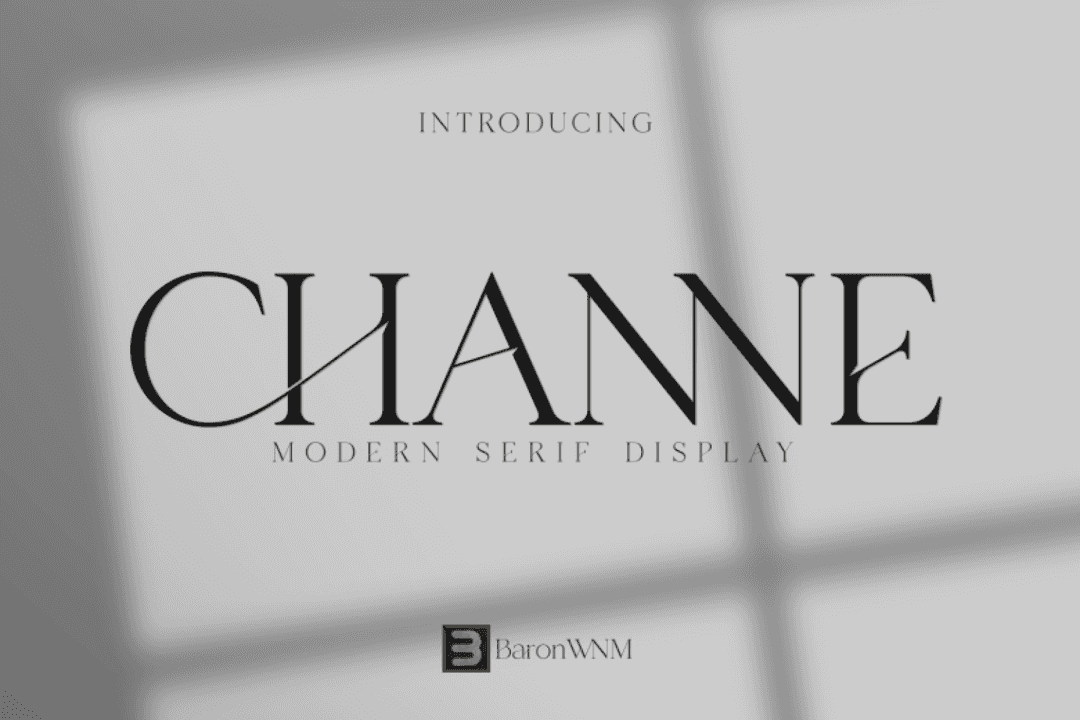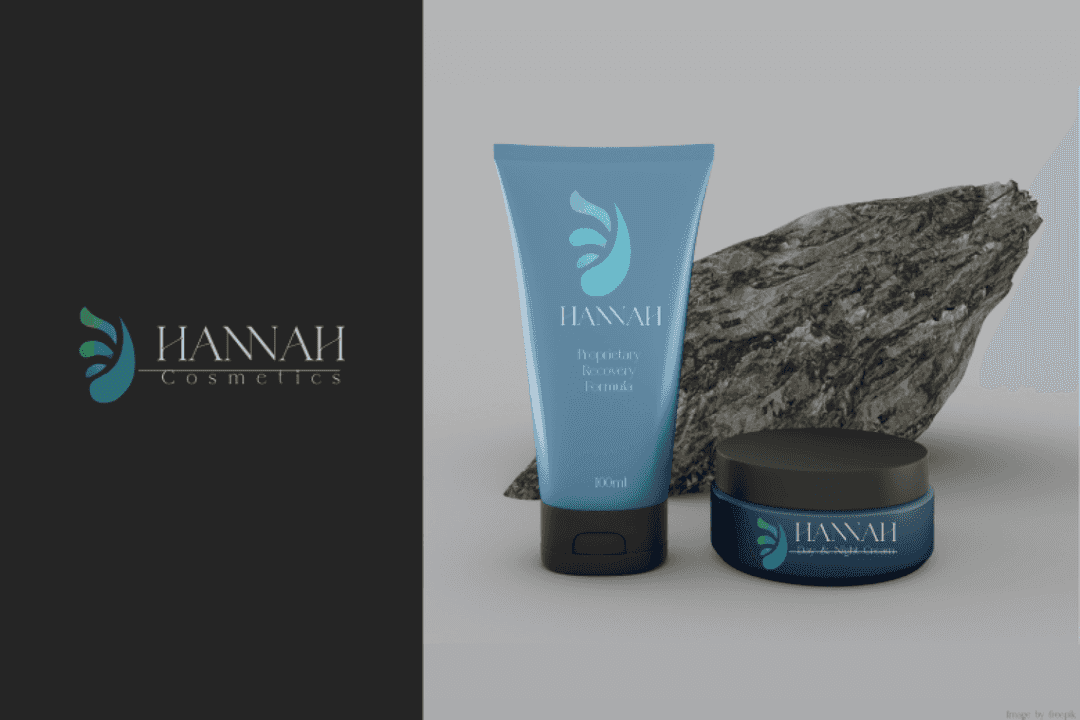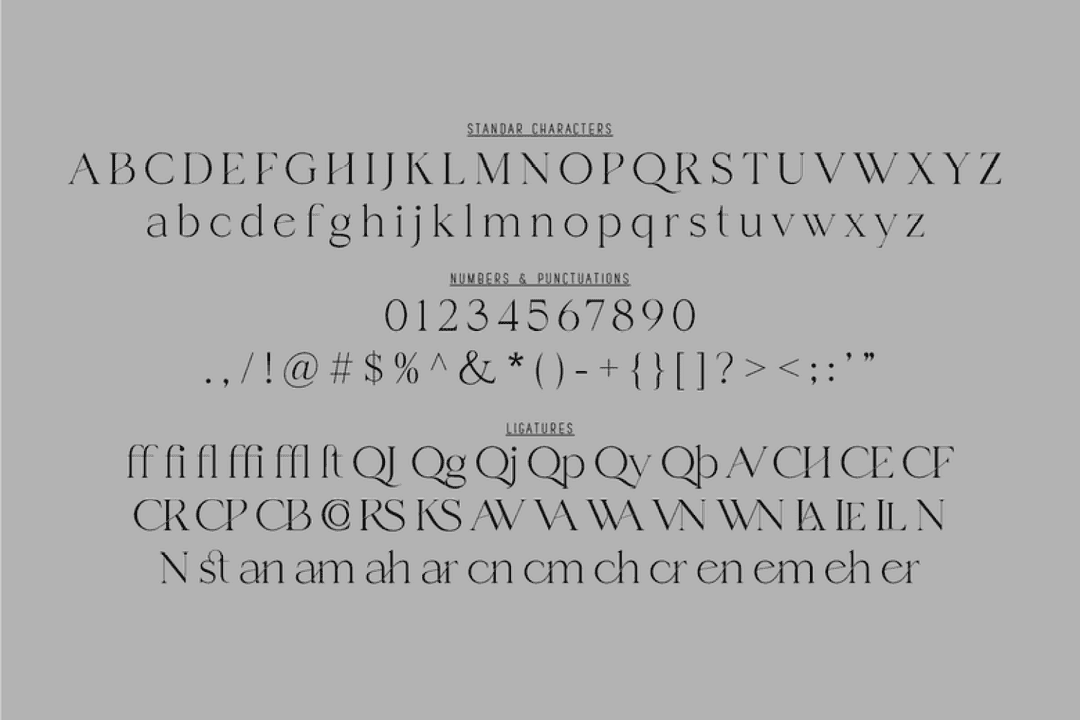
Channe is an eye-catching serif display typeface, featuring both straight and curly designs to create striking and sophisticated effects. Channe stands out among its peers due to its distinctive capital letter shapes like A, B, C H P Q; along with having multiple unique connections for each letter in this particular set. It makes an impactful first impression.